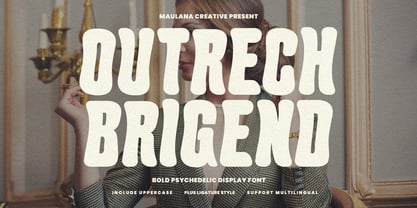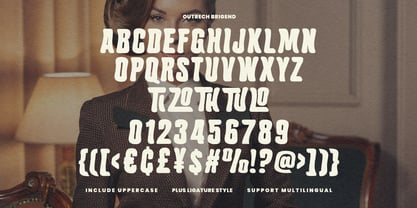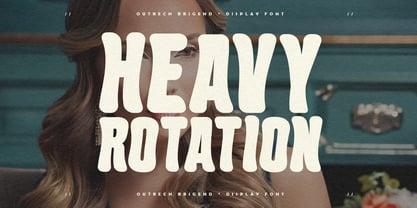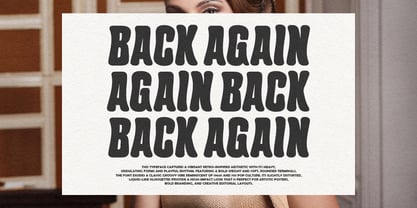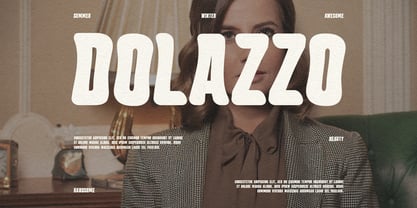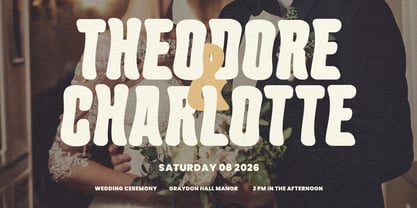
MC Outrech Brigend
by Maulana Creative
The MC Outrech Brigend Font Family was designed by Gilang Maulana and published by Maulana Creative. MC Outrech Brigend contains 1 styles. More about this family
Outrech Brigend is a vibrant, retro-inspired display font that captures a classic groovy aesthetic through its heavy weight and undulating forms. Featuring soft, rounded terminals and a playful rhythm, this typeface exudes a 1960s and 70s pop culture vibe. Its slightly distorted, liquid-like silhouettes provide a high-impact look that is ideal for artistic posters, bold branding, and creative editorial layouts. The font includes uppercase characters, unique ligature styles, and multilingual support to ensure versatility across various design projects.
Designers: Gilang Maulana
Foundry: Maulana Creative